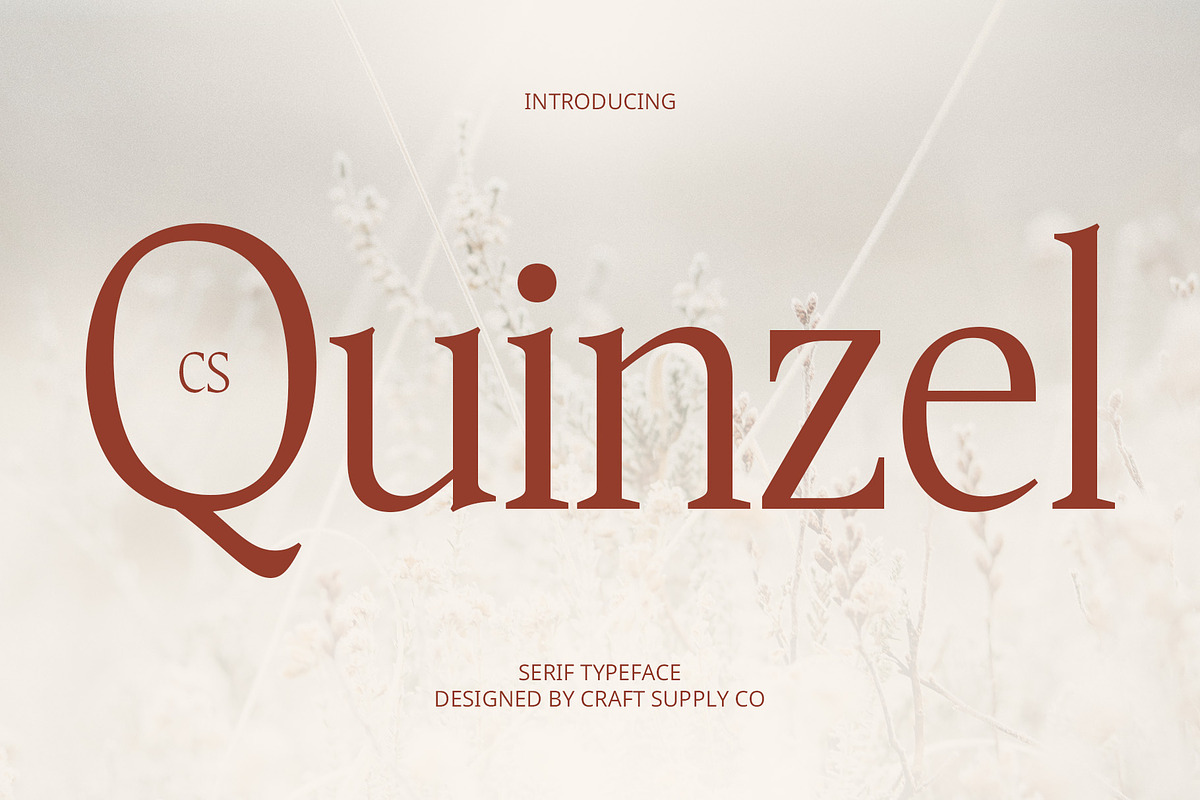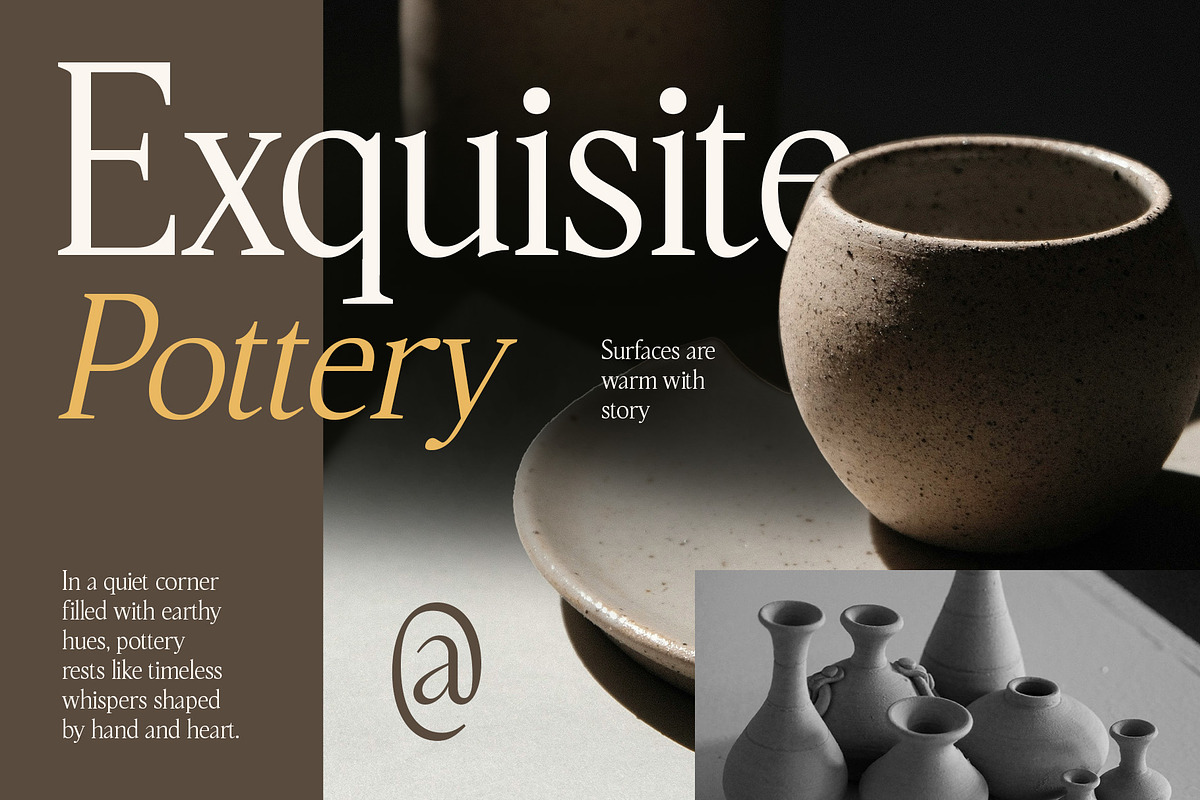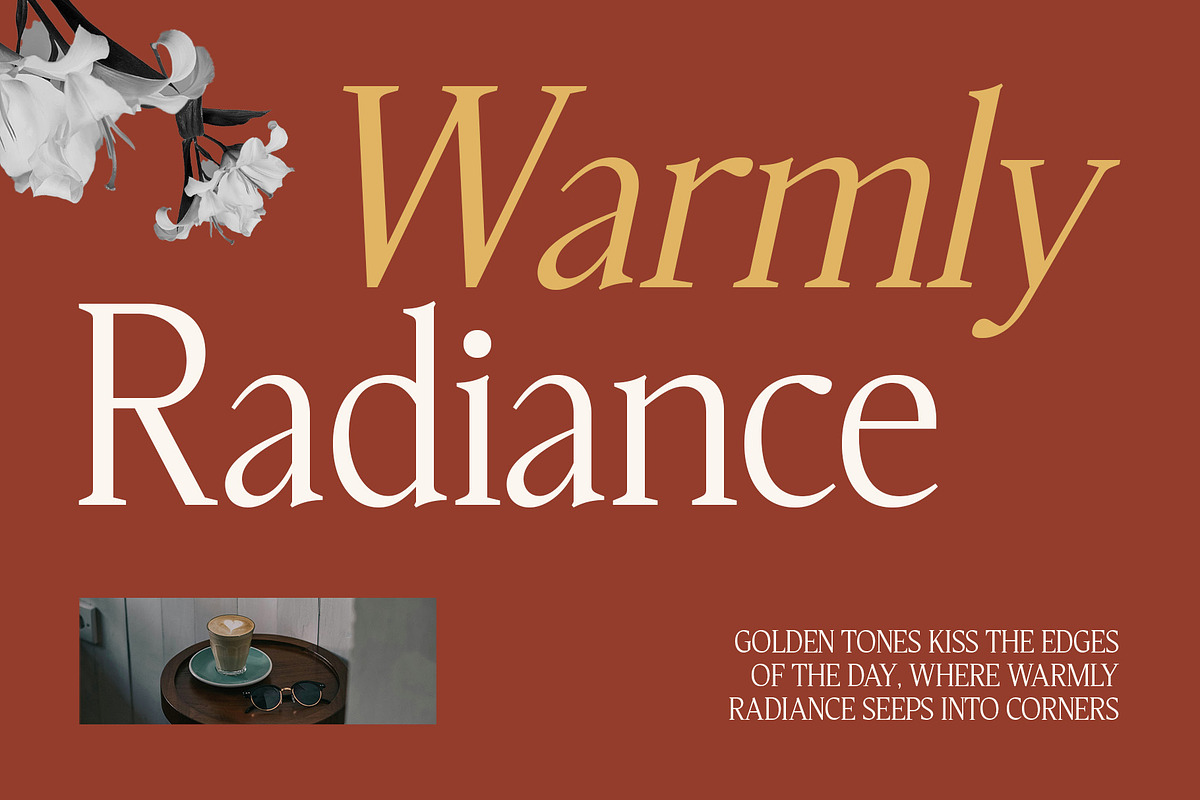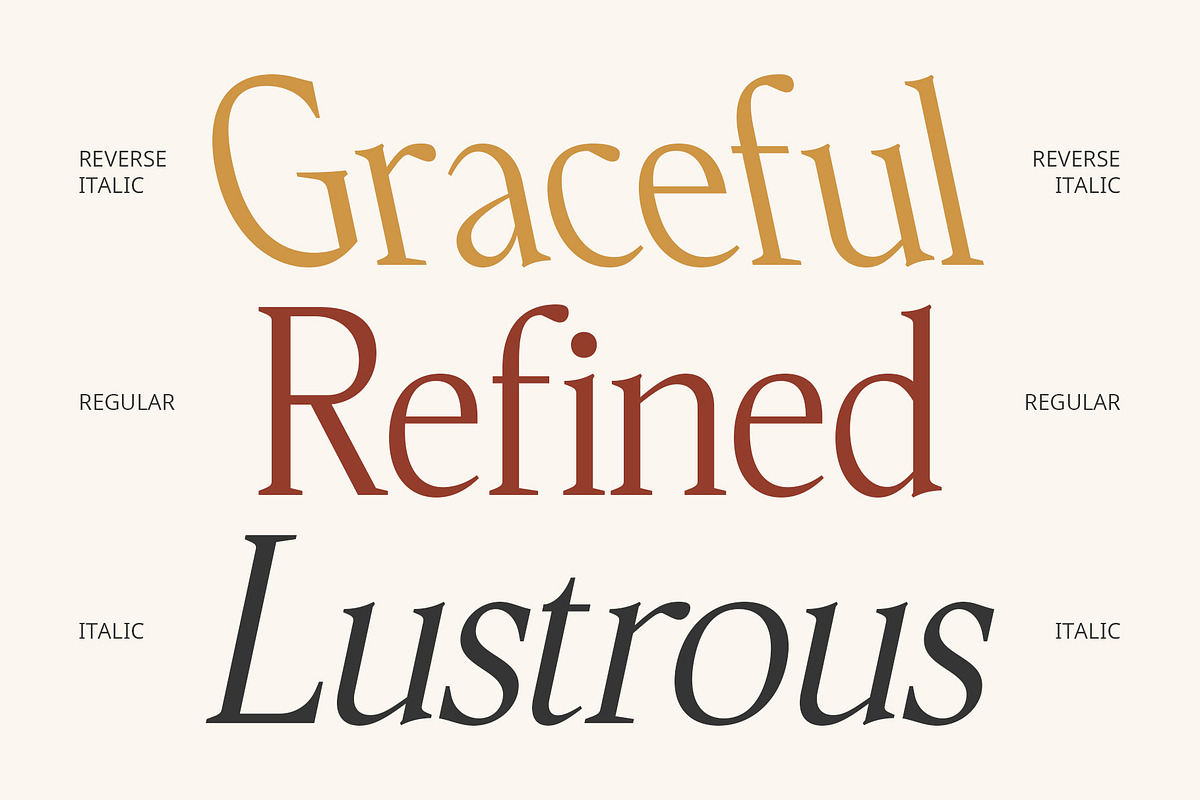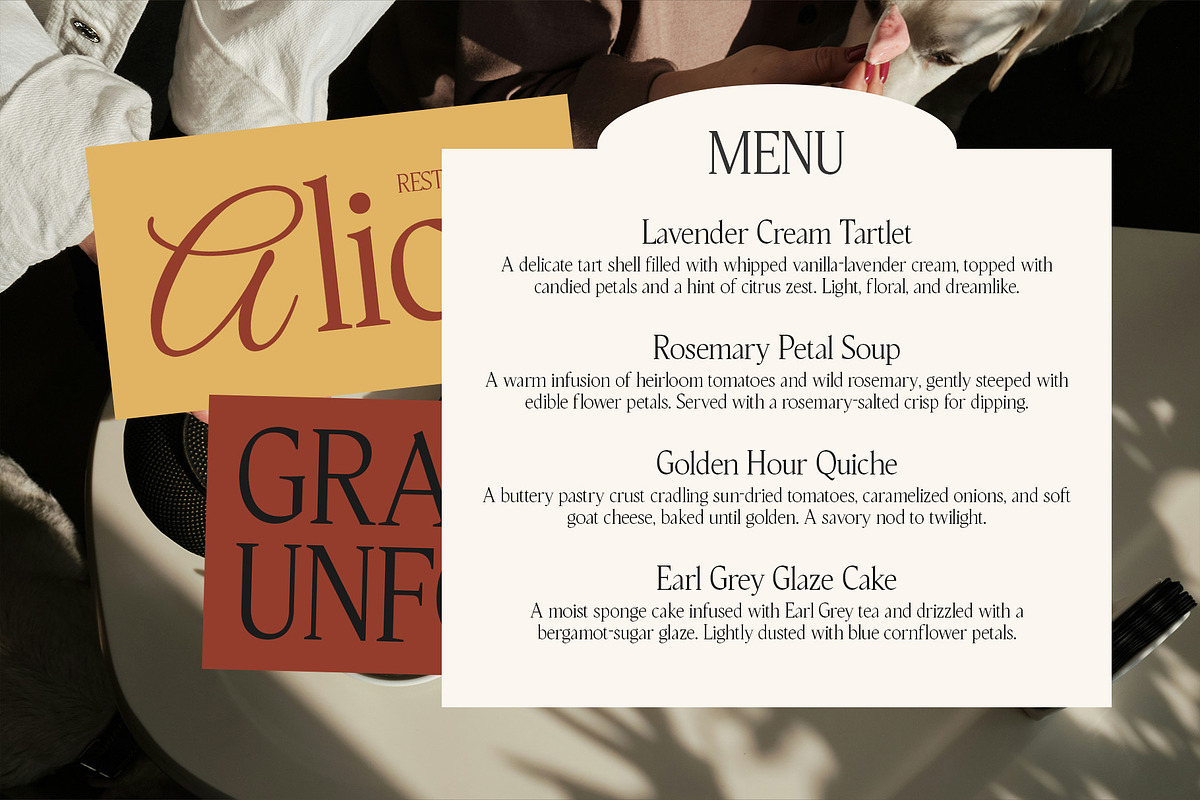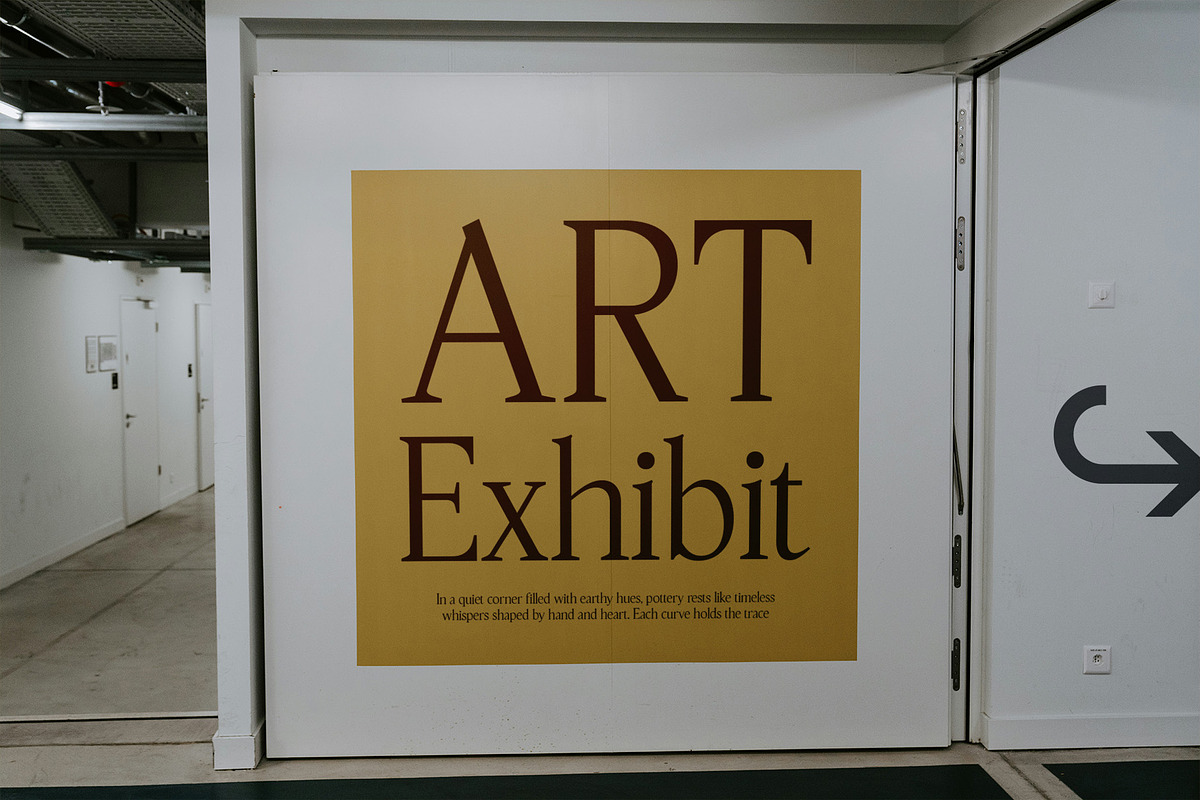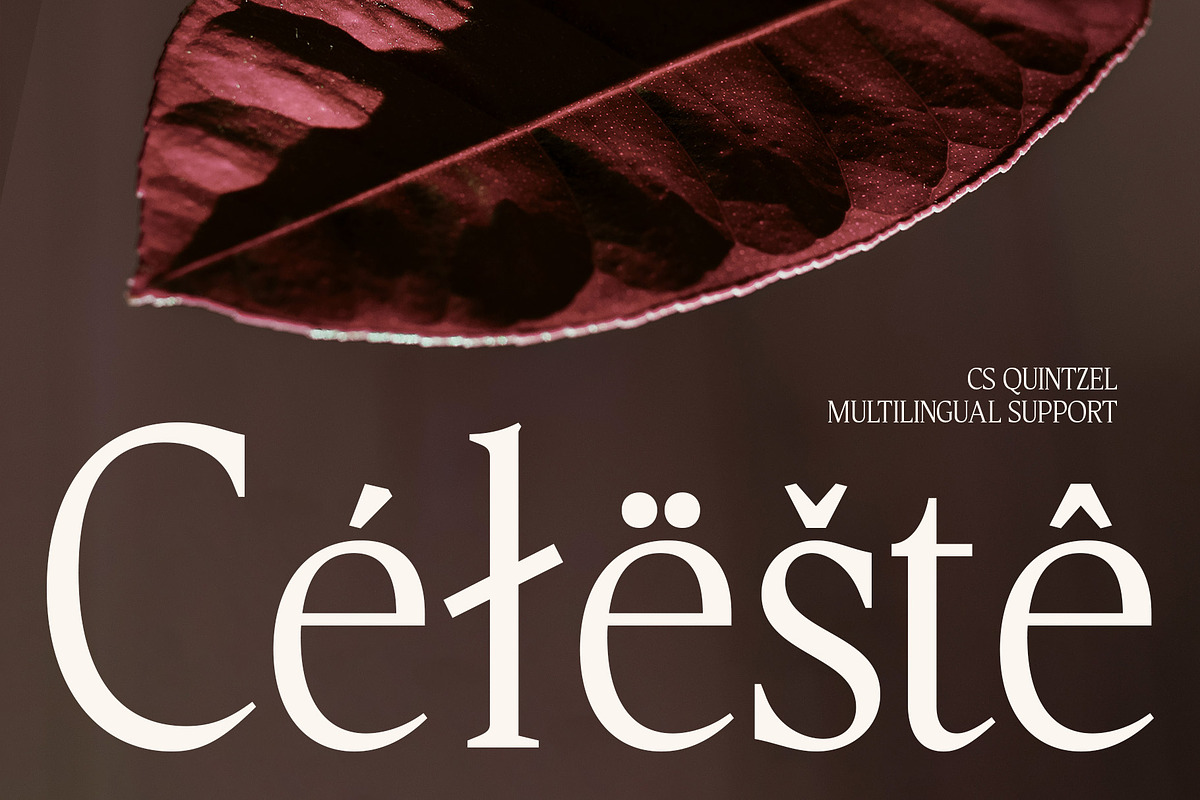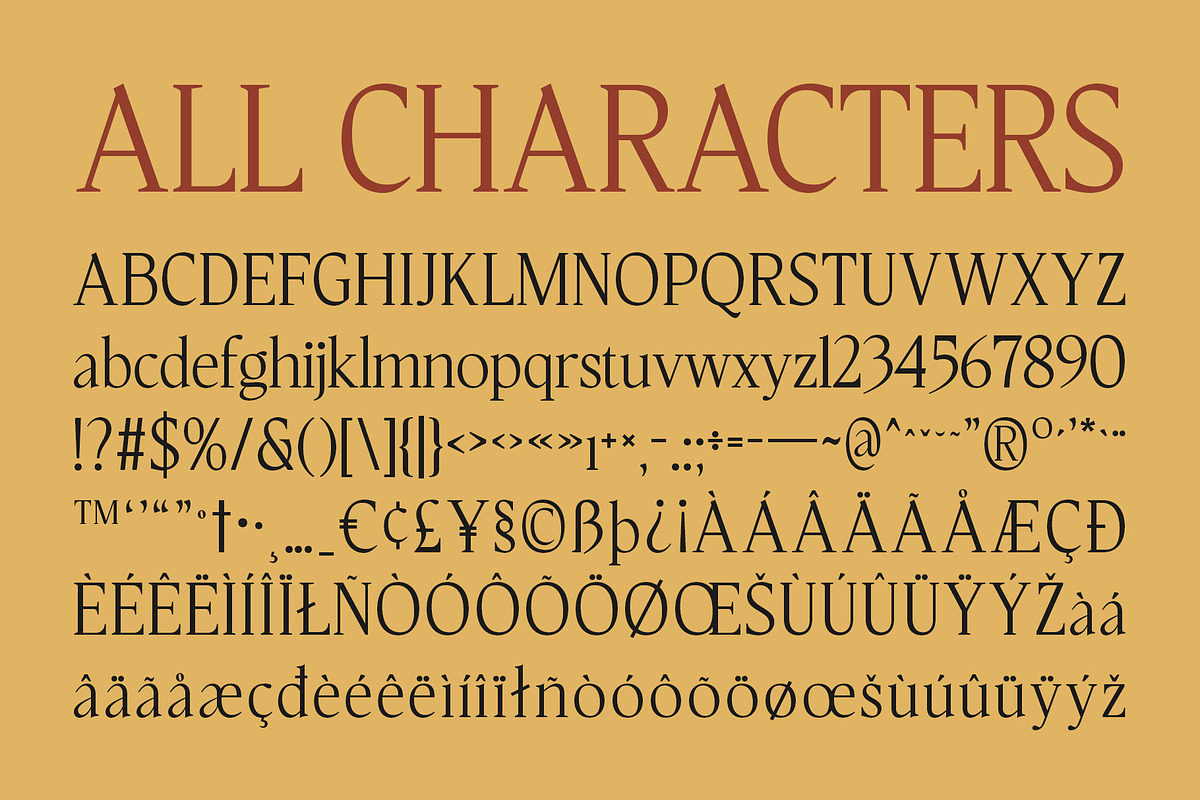
CS Quinzel – Contemporary Font
CS Quinzel – Contemporary Font: Where Timeless Elegance Meets Modern Precision
Modern Serif with a Contemporary Classic Style CS Quinzel is a modern serif font that harmoniously fuses clean, contemporary structure with timeless elegance. Its graceful letterforms are defined by sharp lines, subtle curves, and refined proportions—creating a sophisticated serif that feels both familiar and fresh.
Balanced Structure with Refined Details Each character in CS Quinzel features a balance of crisp edges and delicate serif accents, producing a refined and stable visual rhythm. The result is a typeface that communicates professionalism, clarity, and aesthetic beauty, perfect for today’s high-standard design demands.
Clean and Elegant Impression With its clean lines and elegant character, CS Quinzel projects a poised and confident tone. Its classic influence is modernized with thoughtful spacing and proportion, making it ideal for both text and display use where sophistication and readability must go hand in hand.
Versatile for Professional and Luxury Design Whether applied to luxury branding, modern editorial layouts, or corporate visual identity systems, CS Quinzel adds a layer of credibility and refined style. It’s a font built for designers who seek to marry tradition with innovation—delivering trust, style, and visual impact across all mediums.
- CS Quinzel Regular
- CS Quinzel Italic
- CS Quinzel Reverse Italic